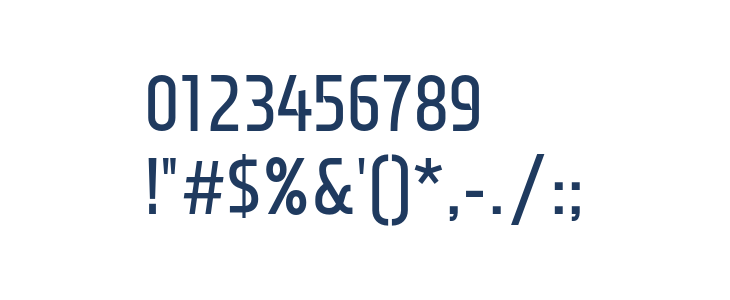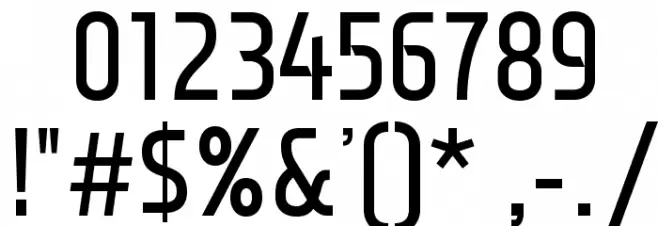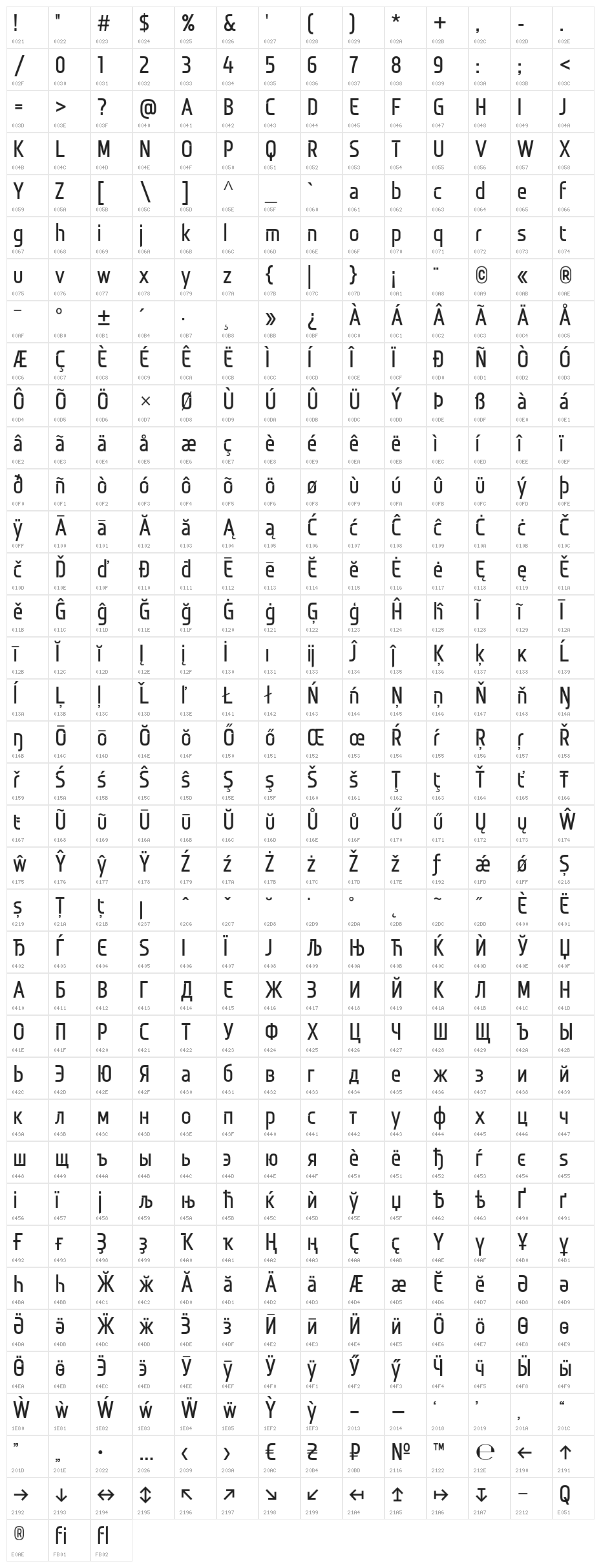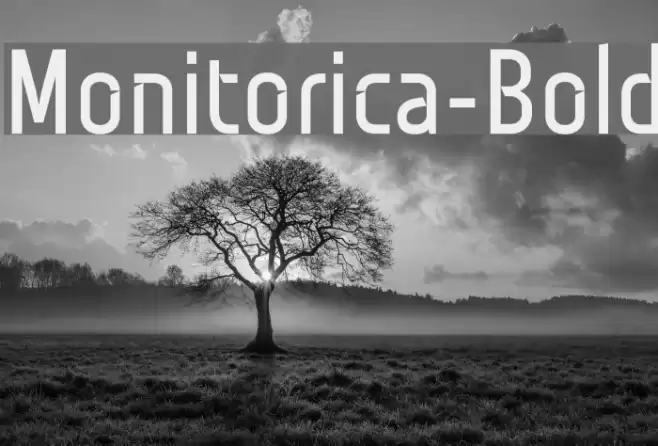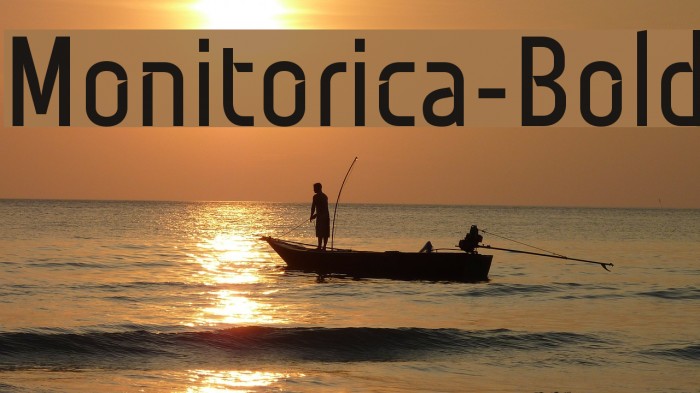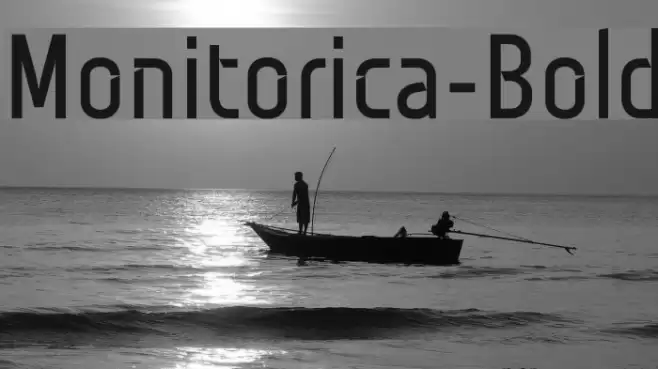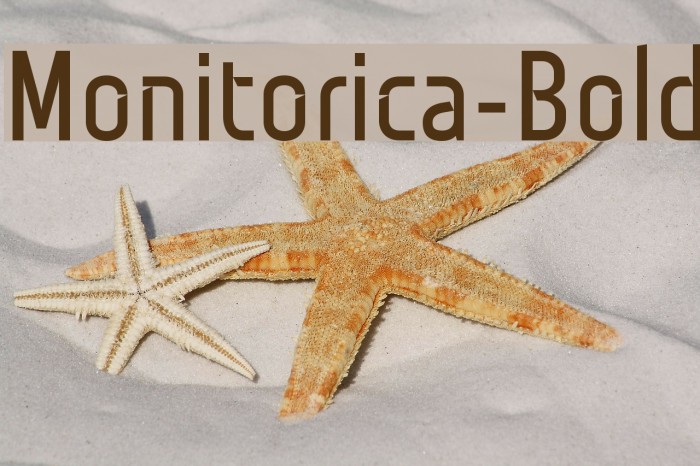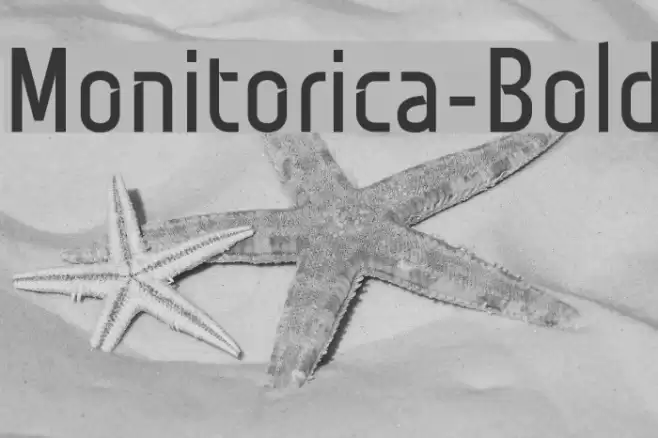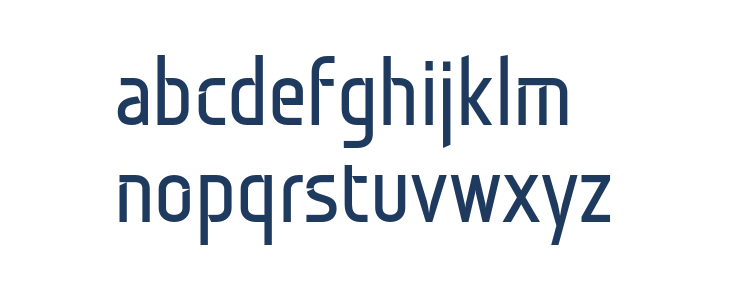
Monitorica-Bold Font
Monitorica-Bold Description
This font features a modern and sleek design with a geometric structure. The characters are bold and have a consistent stroke width, giving them a strong presence. The uppercase letters are tall and slightly condensed, while the lowercase letters maintain a uniform height, creating a harmonious balance. The numerals are clear and legible, designed to stand out without overpowering the text. Special characters are crafted with precision, maintaining the overall aesthetic of the font. The clean lines and minimalistic style make it suitable for a variety of applications, from digital interfaces to print media.
| Use Case | Headlines, Logos, Digital Interfaces |
| Proposed Projects | Ideal for digital interfaces, branding, signage, and editorial design. |